October isn’t just about costumes; it’s the month when small design choices decide whether your Halloween merch fonts help a tee fly off the shelf—or sit in a cold, abandoned cart. For designers, freelancers, and brand owners, apparel and sticker drops live or die by readability, vibe, and print-ready execution. In other words, the font is the scream before the scene.
If you’re planning T-shirts, hoodies, and sticker packs for your POD store, the right Halloween Merch Fonts create instant mood: ooze, slash, crackle, or cackle—without sacrificing legibility at small sizes. This guide gives you 10 high-performing picks from our catalog, battle-tested ideas for composition, and licensing tips so you can ship fast and sell confidently.
Shoppers don’t read first; they feel first. Great Halloween Merch Fonts set an expectation in under a second—“campy fun,” “cult horror,” or “premium gothic”—so the rest of your visual hierarchy can do the selling. Choose a style, stick to it, and push it consistently across tees and sticker sheets to create a recognizable drop.
Before you upload to your printer or marketplace, run this quick pass:
Tip: Pair each pick with a short tagline tee and a matching sticker to build AOV—think bundles like “shirt + three die-cut stickers.”
Melted Brain – Dripping Layered Halloween Font
Ooze, but make it outline-friendly. Use Regular for the main logotype on tees and Outline for sticker borders. Works perfectly for “Trick or Treat Crew” or “Local Boo Club.” Keep 3–5 letter wordmarks for max punch.
Cursed Night – Bold Halloween Font
Chunky edges that hold up on black tees and matte stickers. It’s a killer headline choice for varsity-meets-horror aesthetics—think arched text on chest prints.
Mister Pumpkins – Halloween Font
Playful with doodle energy. Ideal for kid-friendly designs and sticker sets with candy icons. Try color-fill layers on stickers; keep tees in two colors for cost control.
Night Beats – Scary Halloween Font
Sharp, cinematic letters for faux movie posters on tees. Add a subtle noise texture to the sticker version for a VHS-era vibe.
Grims Acid – Liquid Display Font
Liquid, sinister forms. Works well large on back prints (“ACID GHOST RUN”) and as a micro logo on sleeves. For stickers, stack letters to create a dripping totem.
Hallow Creeps – Melted Halloween Font
Great for big single-word tees. Use a thick white stroke on dark garments to preserve the melted silhouette. Turn single glyphs into standalone die-cuts.
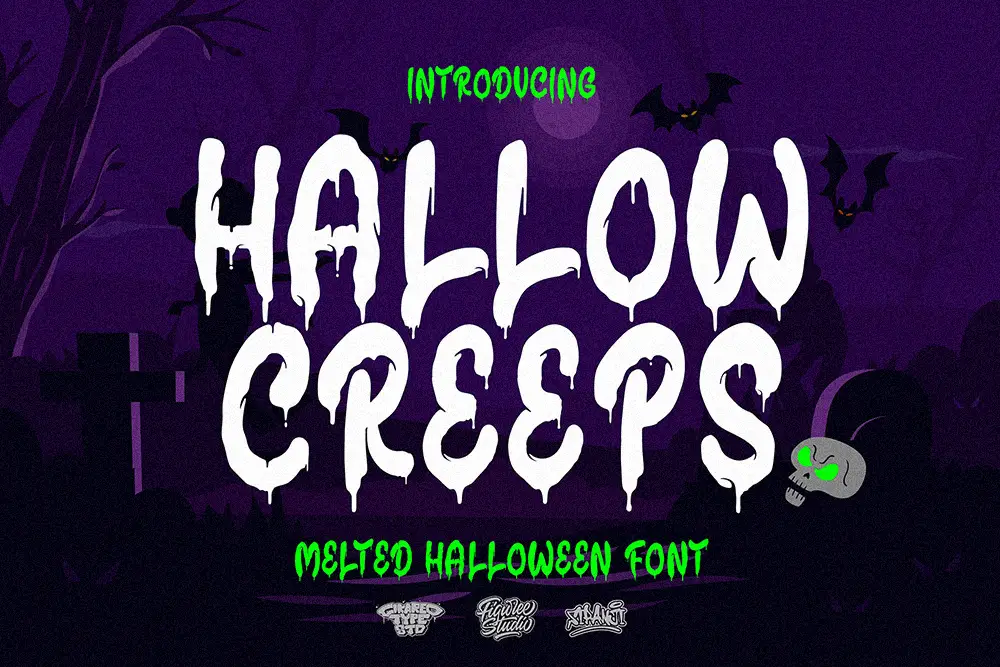
Ghostly Whispe – Brush Horror Font
Brush energy for motion and speed. Perfect for script-adjacent slogans (“RUN FROM MIDNIGHT”). On stickers, add drop shadows to emphasize the swipe.
Vuldra – Graffiti Halloween Font
Urban drip with Halloween attitude. Try neon ink simulations (printed as solids) over dark tees. Bundle with a tag-style sticker sheet for streetwear buyers.
Death Markers – Retro Sign Font
Sign-painting nostalgia + horror drip variant. Combine Clean on tees and Drip on stickers for a collected-set feel.
Black Magnet – Badass Metal Font
For metal-head Halloween drops. Heavy all-caps that read strong at distance—perfect for concert-style tees and coffin-shaped stickers.
Every October, we relearn the same truth: typography is the costume. Designers who commit to a clear tone—campy cute, retro slasher, or avant-goth—win faster because their Halloween Merch Fonts carry the story without extra props. When in doubt, simplify the copy, enlarge the type, and let the letters act.
Strategically, pick one hero font for the drop and build everything around it: product titles, thumbnails, banners, even the email header. That consistency makes your mini-brand binge-able for a month straight.